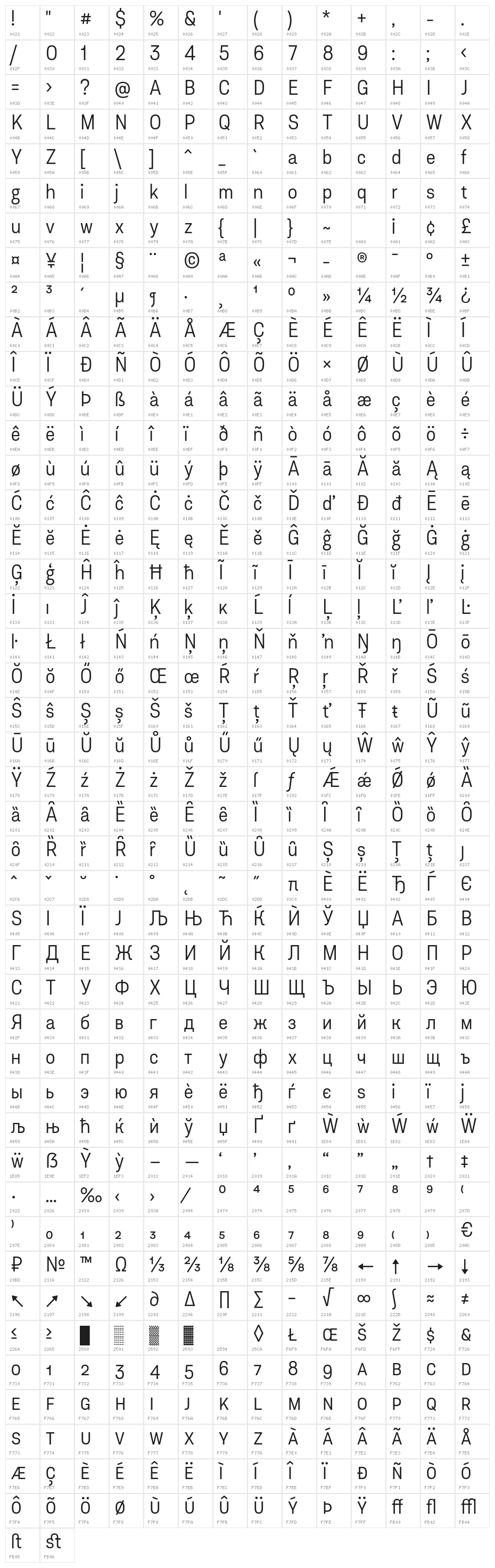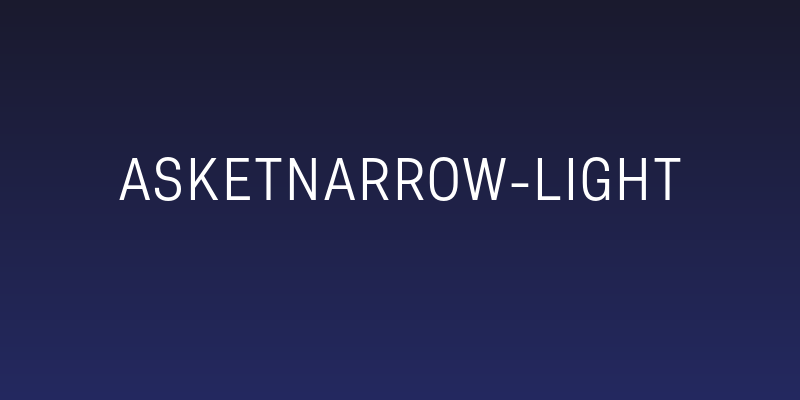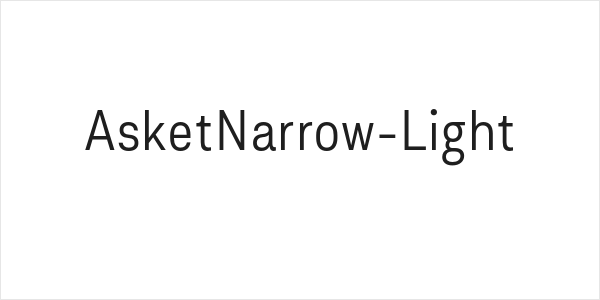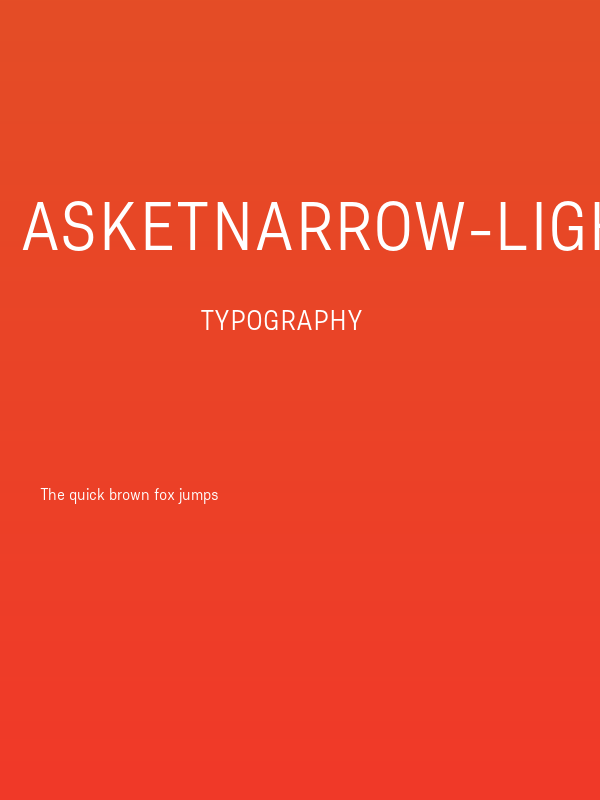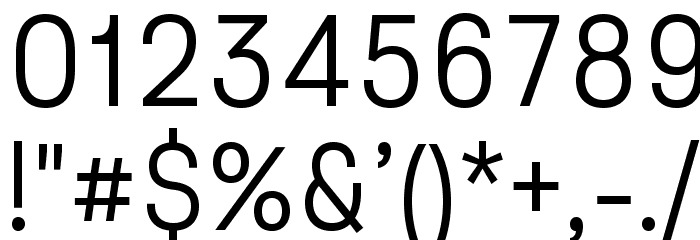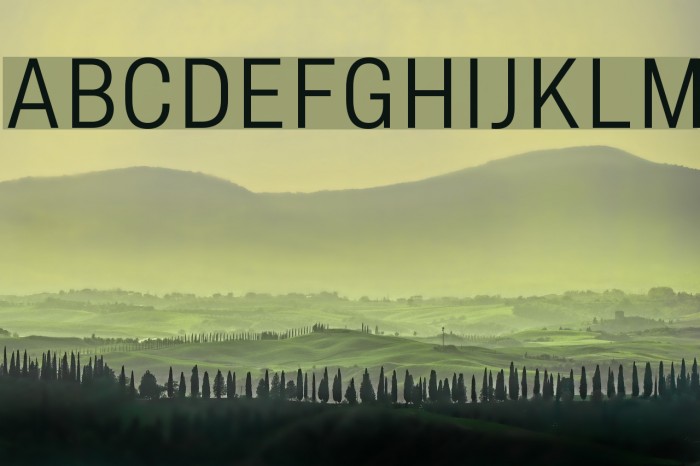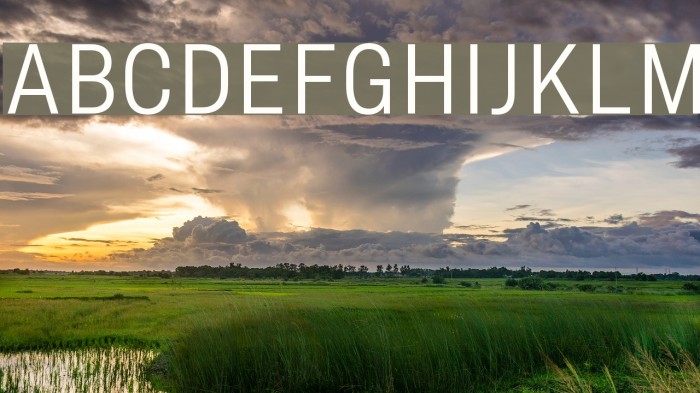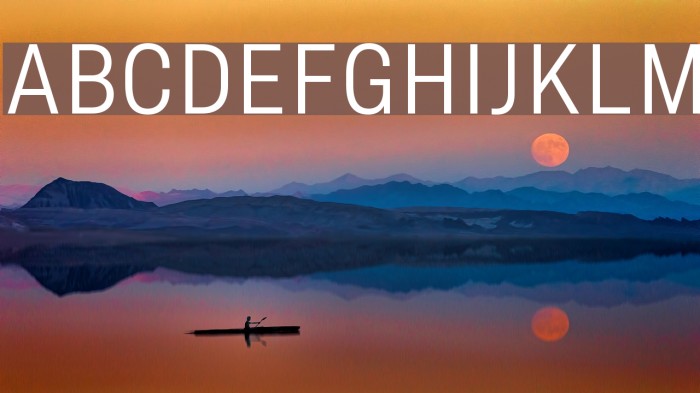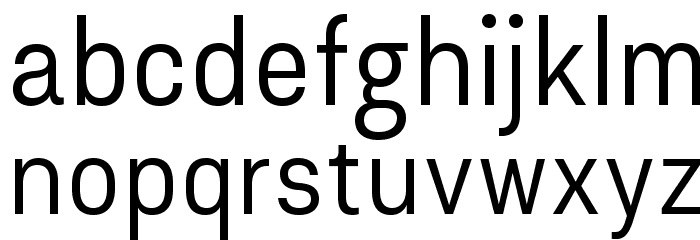
AsketNarrow-Light Font
AsketNarrow-Light Description
This font features a clean and modern sans-serif design with a narrow width, giving it a sleek and contemporary appearance. The characters are uniform in stroke width, contributing to a minimalist aesthetic. The uppercase and lowercase letters are well-proportioned, with a slight geometric influence that enhances readability. The numerals are clear and distinct, making them suitable for various applications. The special characters maintain the font's overall style, ensuring consistency across different uses. Its simplicity and elegance make it versatile for both digital and print media.